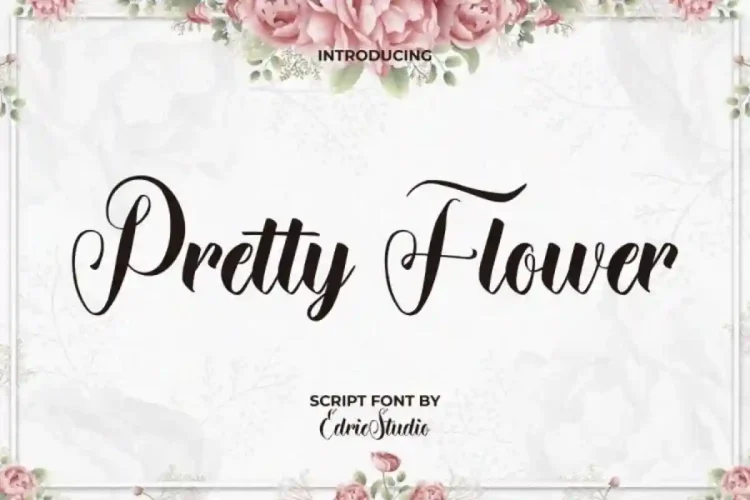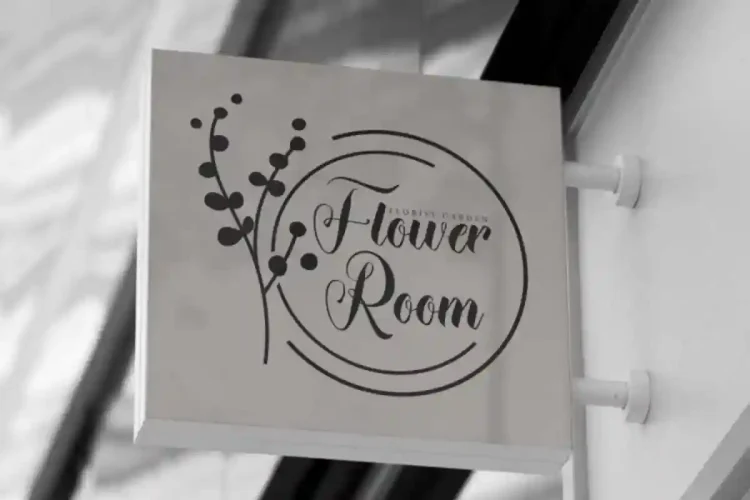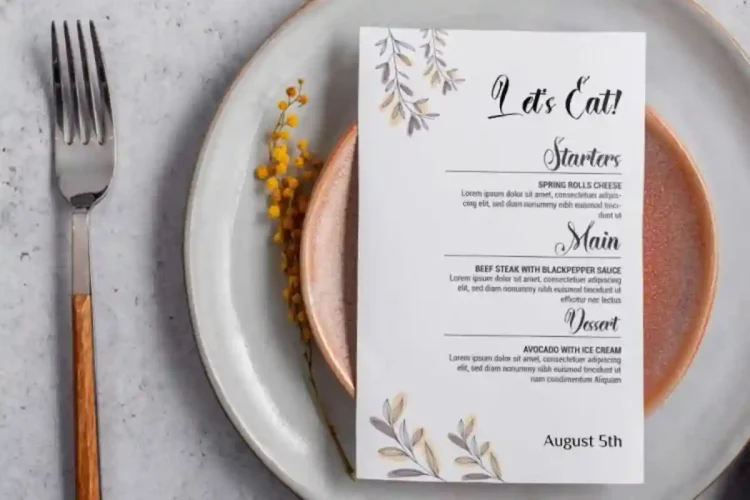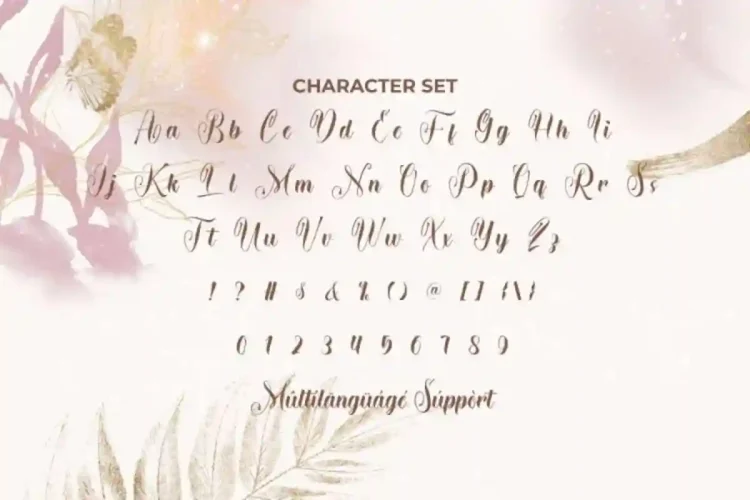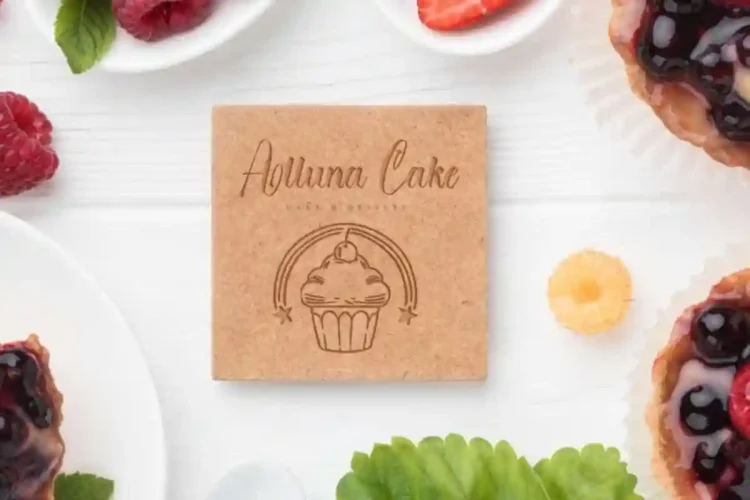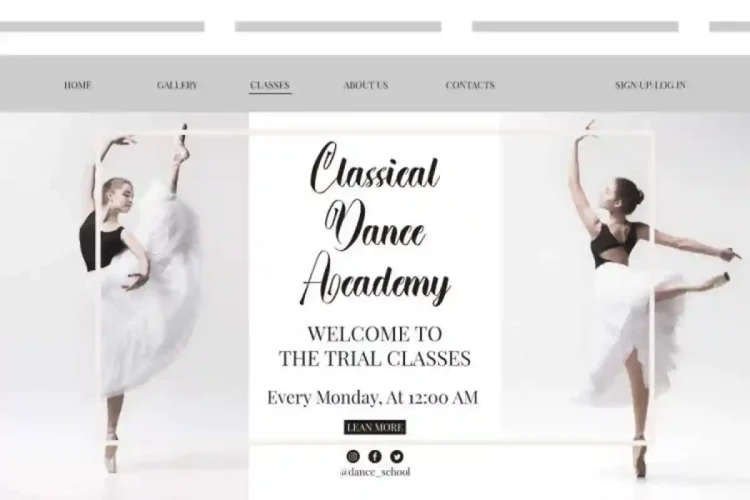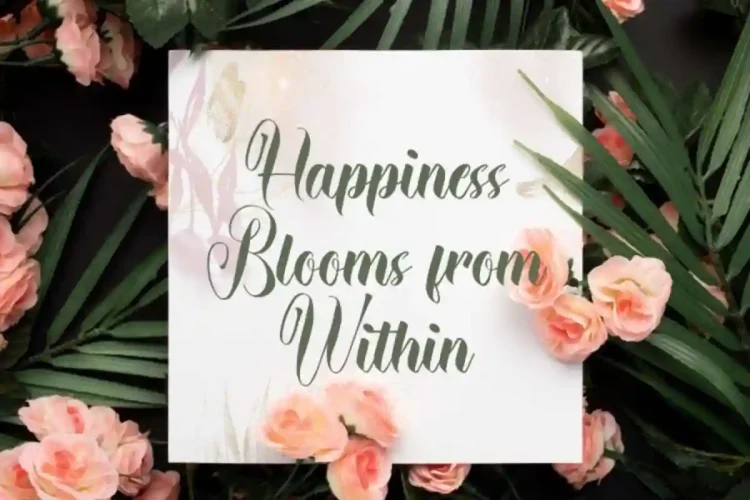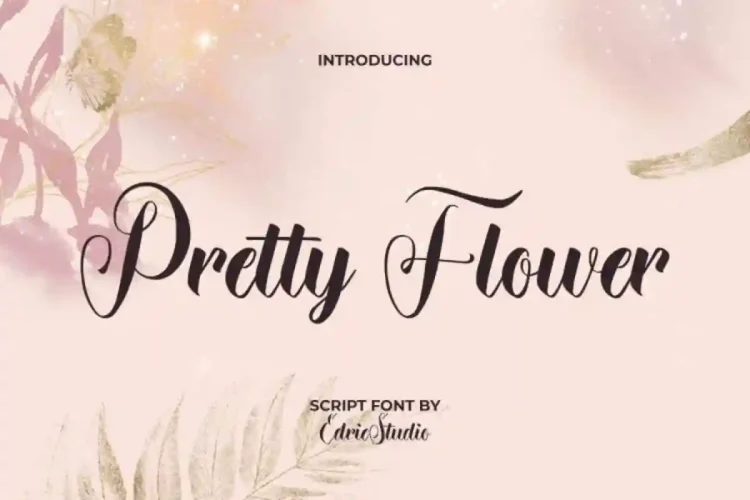
Pretty Flower Script Font an elegant calligraphy typeface crafted with perfect flowing lines and easy readability. Designed by EdricStudio.
Pretty Flower Script Font comes with a full set of Uppercase and Lowercase Basic Characters, Number, a large range of Punctuation and Symbol. It has a stunning characters set, perfectly managed with well spaced and kerning. Pretty Flower Script Font will be great for any projects (with extended license) including : art frame, brand logo, brochure, header, labels, menu, packaging design, quotes, screen printing, signage, stationery, website, etc.
Pretty Flower Script Font is a playful typeface with unique decoration in each character.Ready to use both on Windows machine or Mac with simple installations. It’s tested to work well in the Adobe Apps (Illustrator, Adobe InDesign, Adobe Photoshop) even work on Microsoft Word. PUA Encode Characters means you can access all characters easily – Fully accessible without additional design software.